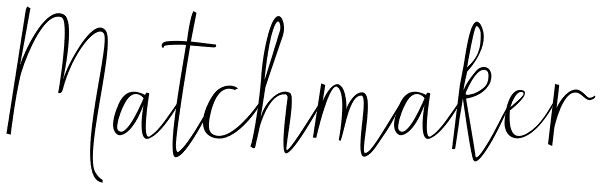
Matchmaker
Matchmaker, a modern calligraphy typeface, was inspired by the various works of modern day calligraphers. Its tall, quirky, and juxtaposed letterforms provide a deviation from traditional calligraphy-inspired typefaces. Matchmaker features smart...